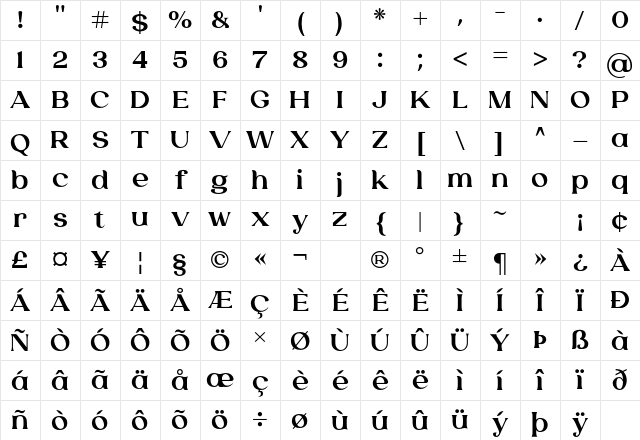
Laviossa Medium Free Font
Laviossa Medium
Foundry: Jehoo Cretaive
Designer: Anwar Patihan
Design Context for Laviossa
Laviossa is a composed and adaptable typeface that performs quietly and consistently across a wide range of design contexts.